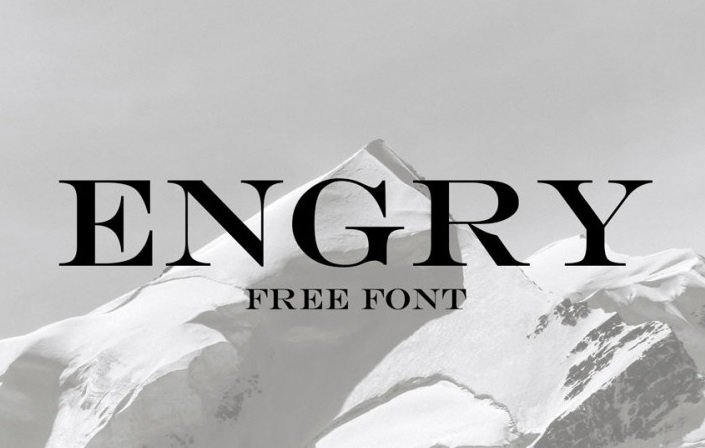
Engry Font
Engry Font is a modern high-class all-caps serif font based on Engravers Roman (1899) originally created by Robert Wiebking. It contains all caps letters, numbers and basic symbols, supports Latin and Cyrillic. This font is great for headlines, fashion and apparel, covers and posters and other display purposes.